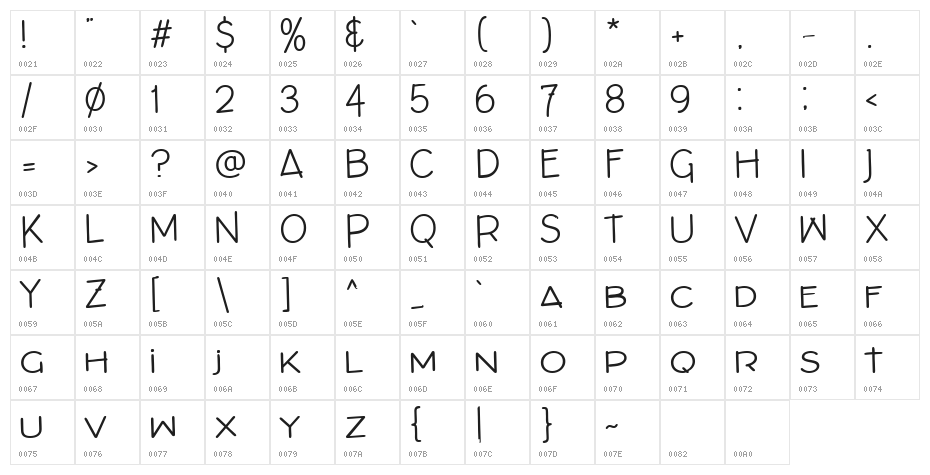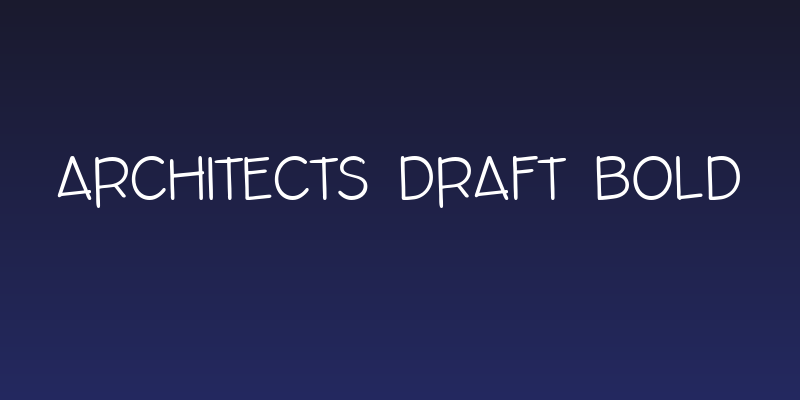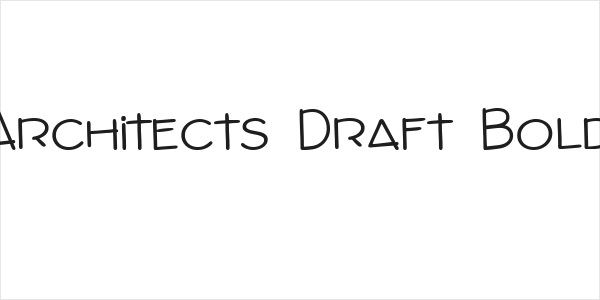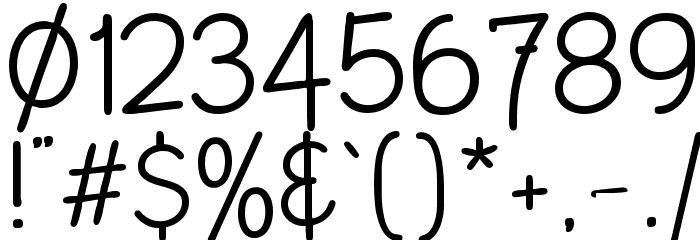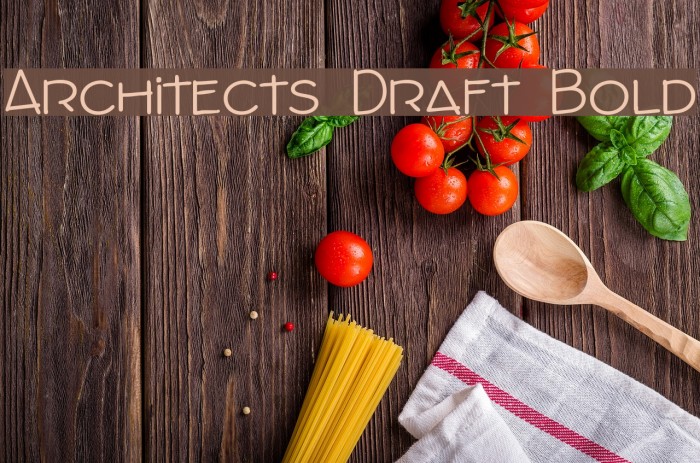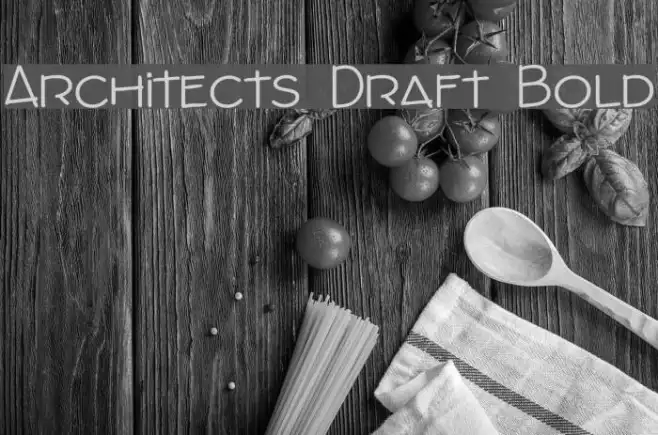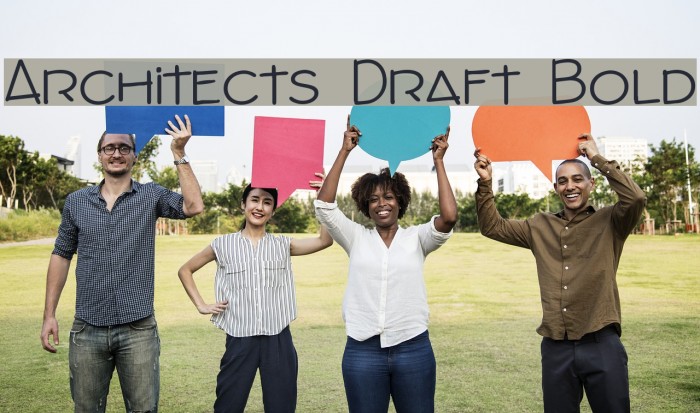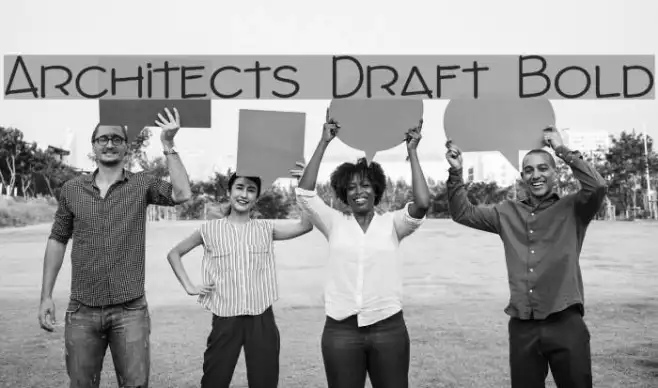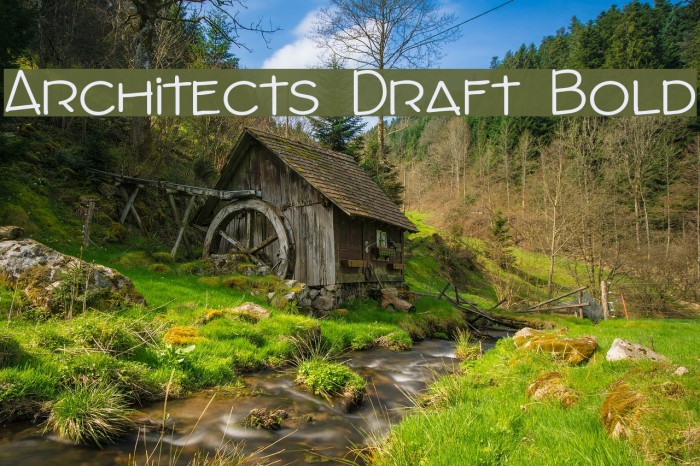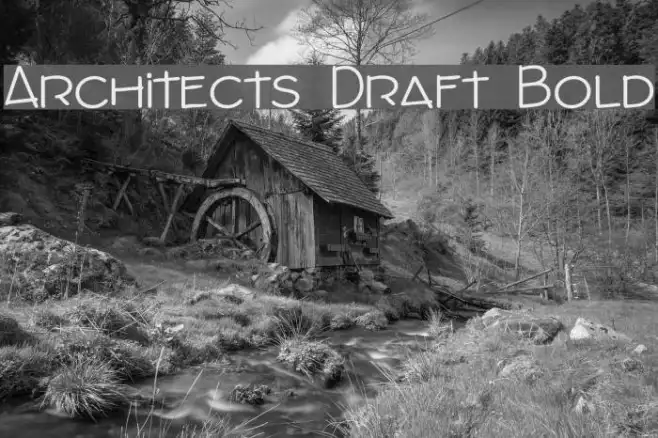
Architects Draft Bold Font
Architects Draft Bold Description
This font exhibits a playful and informal style, reminiscent of hand-drawn architectural sketches. The characters are bold and rounded, with a consistent stroke width that gives a uniform appearance. The uppercase and lowercase letters maintain a cohesive look, with slightly exaggerated curves and angles that add a touch of whimsy. The numerals and special characters follow the same design principles, ensuring a harmonious overall aesthetic. This font is ideal for projects that require a casual yet professional feel, such as architectural presentations, creative branding, or educational materials.
| Use Case | Headlines, Logos, Informal text |
| Proposed Projects | Ideal for architectural presentations, creative branding, educational materials, and informal design projects. |